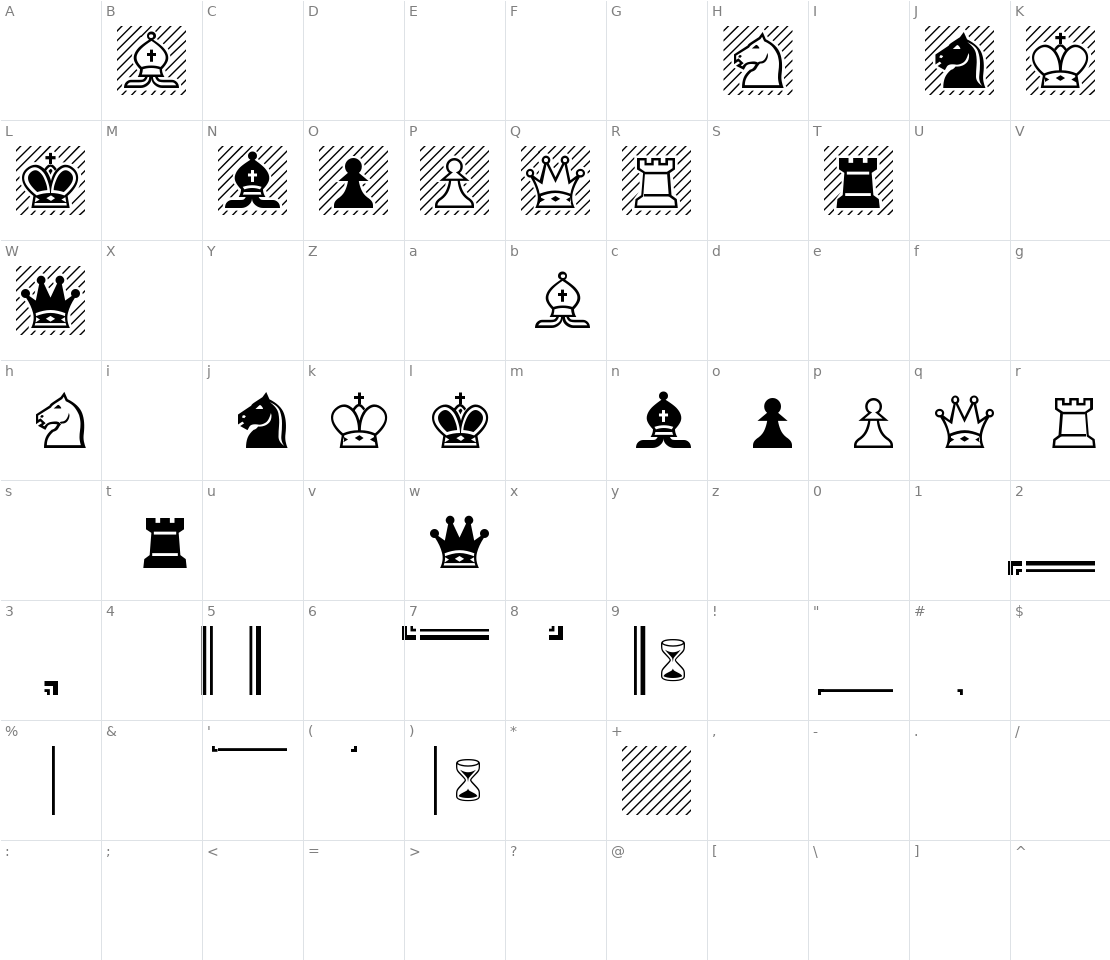
Chess Alpha
by Eric Bentzen
Chess Alpha is a specialty symbol font by Eric Bentzen containing chess piece icons rather than traditional letterforms. It's designed for diagramming board positions and illustrating games in print or on screen, with clean, recognizable piece shapes that stay legible even at smaller sizes. Purely functional and decorative, built for chess enthusiasts and publishers who need to typeset game notation or board layouts.